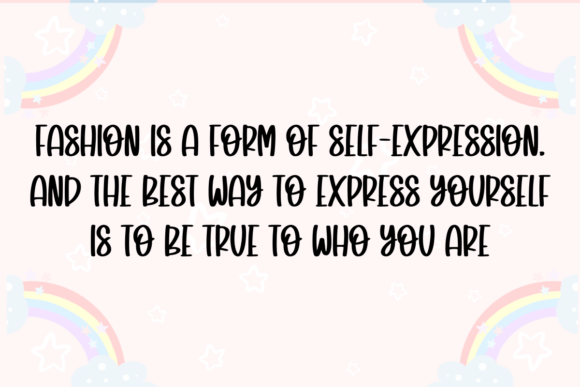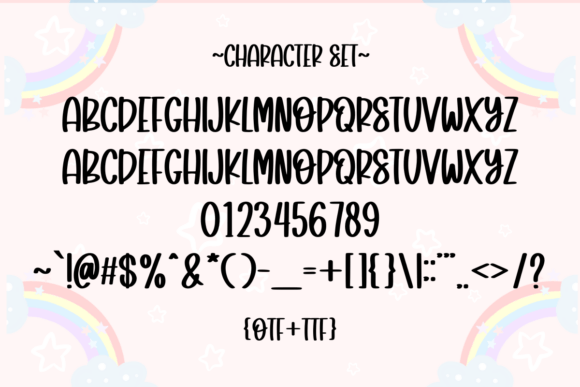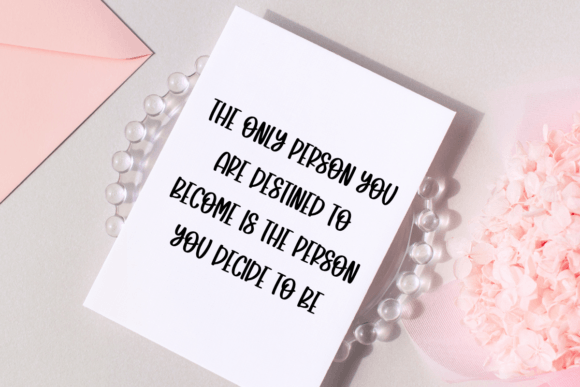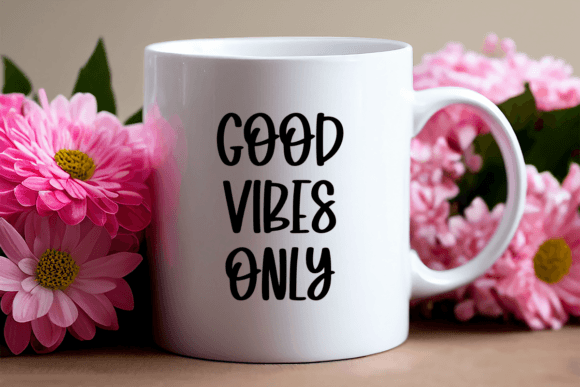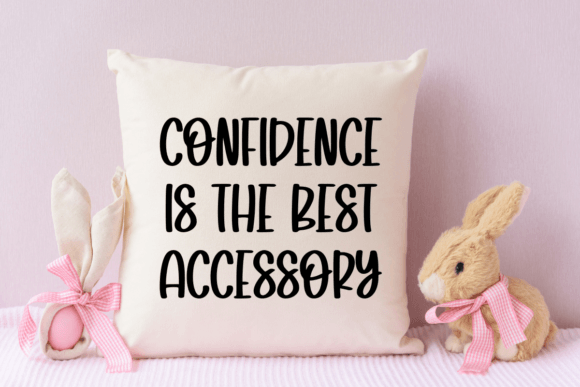
Unleashing the Joy of Design: Introducing Cheerful Chic Font
Who hasn’t felt that rush of excitement when stumbling upon the perfect font for a project? It’s like finding the missing puzzle piece that brings your design to life. For designers, the thrill of discovery is a daily occurrence, and it’s precisely this feeling that Cheerful Chic Font aims to evoke.
Cheerful Chic Font is a vibrant and playful sans serif font, designed to add a dash of whimsy to your designs. With its retro flair and bubbly charm, it’s the perfect fit for projects that need a lighthearted touch. Whether you’re creating a fun kids’ app, a quirky social media campaign, or a bright and cheerful website, Cheerful Chic Font is sure to bring a smile to your audience’s faces.
For designers, Cheerful Chic Font is a valuable asset that can elevate their work and set them apart from the crowd. Its versatility and charm make it an ideal choice for a wide range of projects, from digital designs to print materials. With Cheerful Chic Font, the possibilities are endless, and the fun is just beginning.
Cheerful Chic Font Key Features
- Font Family: Cheerful Chic, a modern and elegant sans-serif font.
- Unique Characteristics: Cheerful Chic features a unique blend of modern and classic elements, with subtle rounded edges and a friendly feel.
Designer Review: Cheerful Chic Font
Overall, I’m quite fond of the Cheerful Chic Font. It’s got a certain je ne sais quoi that makes it perfect for projects that need a touch of whimsy.
- Unique Character Set: The font has a lovely set of characters that add to its playful personality.
- Customization Options: The font allows for a decent amount of customization, which is great for designers who like to get creative.
- Easy to Read: Despite its playful nature, the font is surprisingly easy to read, making it a great choice for body text.
- Limited Stylistic Alternates: While the font has some great customization options, it’s a bit lacking in terms of stylistic alternates, which can be a drawback for designers who like to experiment.
- Not Ideal for Large Text: While the font is great for body text, it’s not the best choice for large text, as it can become a bit difficult to read.
Overall, I’d give the Cheerful Chic Font 4 out of 5 stars. It’s a great choice for designers who are looking for a fun, playful font that’s easy to read. However, it may not be the best choice for projects that require a lot of customization or large text.
For optimal results, pair Cheerful Chic Font with bright colors and playful graphics.
– Creating social media graphics and ads
– Designing invitations and party materials
– Developing brand identities for playful businesses